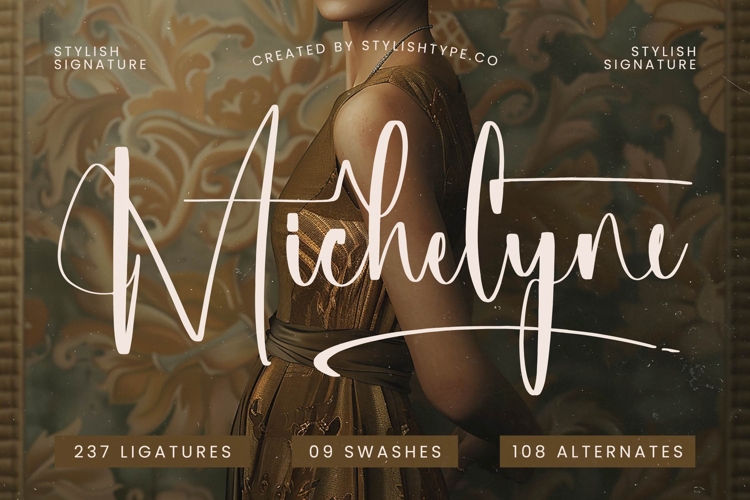
Michelyne - Stylish Signature Font
Michelyne is a stylish signature font crafted with elegance, refinement, and a timeless handwritten touch. Its flowing strokes, delicate ligatures, and graceful alternates make it an ideal typeface for projects that demand sophistication and modern artistry. Featuring 237 ligatures, 108 alternates, and 9 swashes, Michelyne offers endless creative possibilities to achieve unique and custom lettering results.
This font works beautifully in branding. Perfect for logos, luxury fashion labels, boutique shops, monograms, and artisan products, Michelyne communicates exclusivity and style. Its handwritten detail ensures that branding projects stand out with timeless sophistication, making it an excellent choice for premium markets.